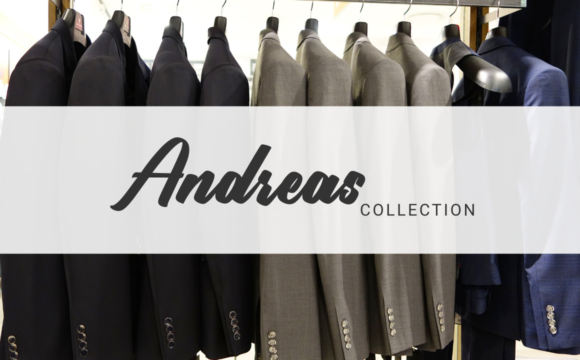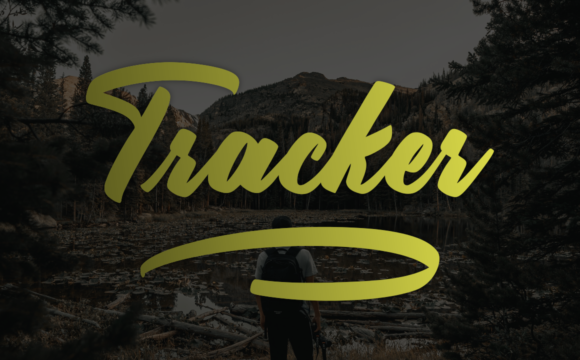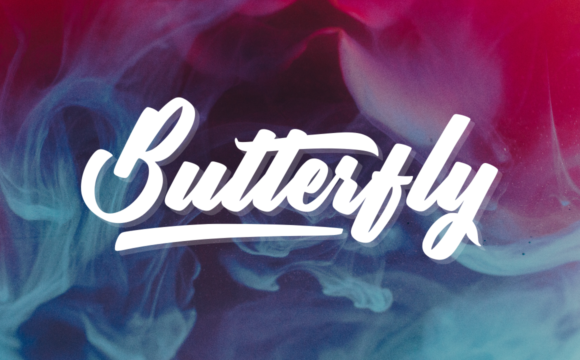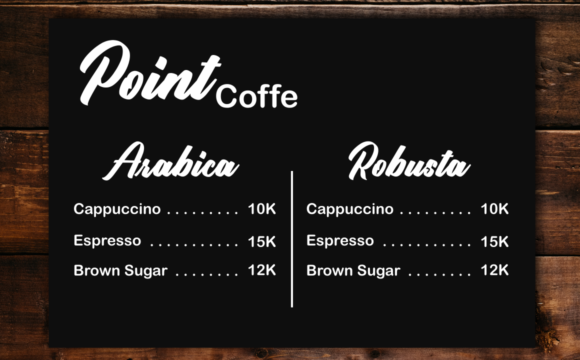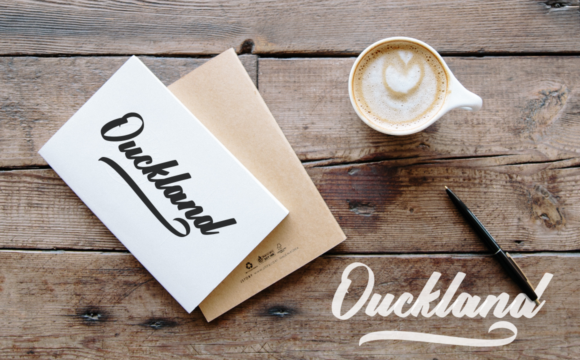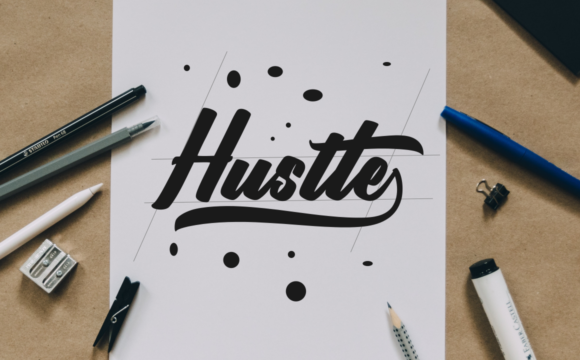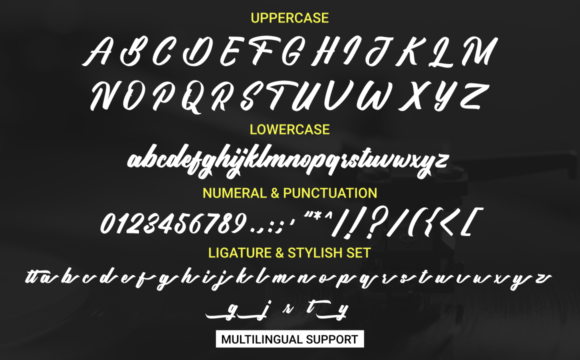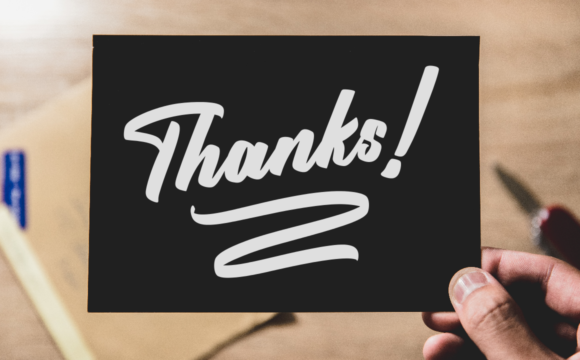
Jandha Font
Jandha is a mdoern and stylish script font with a vintage feel. Get inspired by its unique style, and turn any design idea into a true standout!